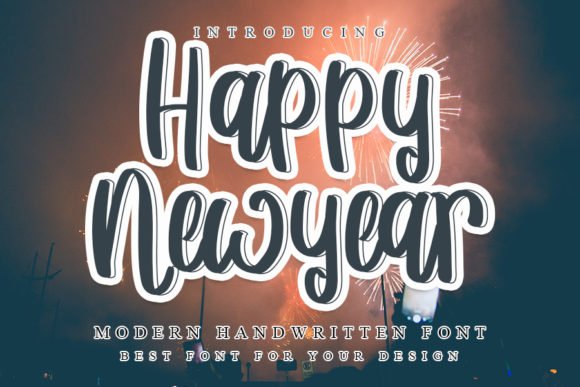
Ring in the New Year with Style: Introducing Happy New Year Font
As the clock strikes midnight and the fireworks light up the sky, creatives around the world are buzzing with excitement, thinking about the new projects they want to tackle in the coming year. For many of us, the start of a new year is the perfect time to refresh our designs, try new things, and bring a little extra joy into our work.
Enter the Happy New Year Font, a simple yet stylish handwritten font that’s perfect for adding a personal touch to your crafts, digital designs, presentations, and greeting cards. Whether you’re a seasoned designer or just starting out, this font is a valuable addition to your toolkit, offering a unique and eye-catching way to express your creativity.
With its cute and trendy aesthetic, the Happy New Year Font is sure to bring a smile to your face and a spark to your designs. So why not give it a try and see how it can help you ring in the new year with style?
Key Features of Happy New Year Font
- Unique Characteristics: The font features a unique, celebratory design with bold lines, vibrant colors, and intricate details, perfect for New Year’s Eve and other festive occasions.
Happy New Year Font Review
Overall, I was excited to dive into the Happy New Year Font and see what it had to offer. Here’s my honest take.
- Unique and festive design: The Happy New Year Font is perfect for any New Year’s celebration or party invitation.
- Well-executed bold and italic styles: The font’s bold and italic versions are well-designed and visually appealing.
- Good legibility: The font is easy to read, even in smaller sizes.
- Limited language support: Unfortunately, the Happy New Year Font only supports a few languages, which might be a limitation for some users.
- Not suitable for formal documents: The font’s playful design might not be suitable for formal documents or professional settings.
Overall, I think the Happy New Year Font is a great choice for any festive occasion, but it may not be the best fit for every project. With its unique design and well-executed styles, it’s definitely worth considering for your next New Year’s party or celebration.
Happy New Year Font: A Practical Application Guide
Use the Happy New Year font to create eye-catching and festive designs, such as:
- New Year’s Eve invitations and party materials.
- Countdown timers and calendars.
- Resolution-themed posters and graphics.
Experiment with different font sizes, colors, and styles to create a unique look that captures the excitement of the new year.